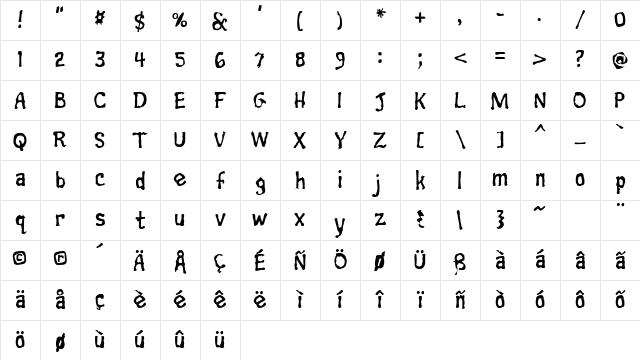
Trainwreck Regular
Design Context for Trainwreck
Trainwreck is a composed and adaptable typeface that performs quietly and consistently across a wide range of design contexts.
Pro Tip: Use Trainwreck in both headline and body roles to test its range before committing to a single application.